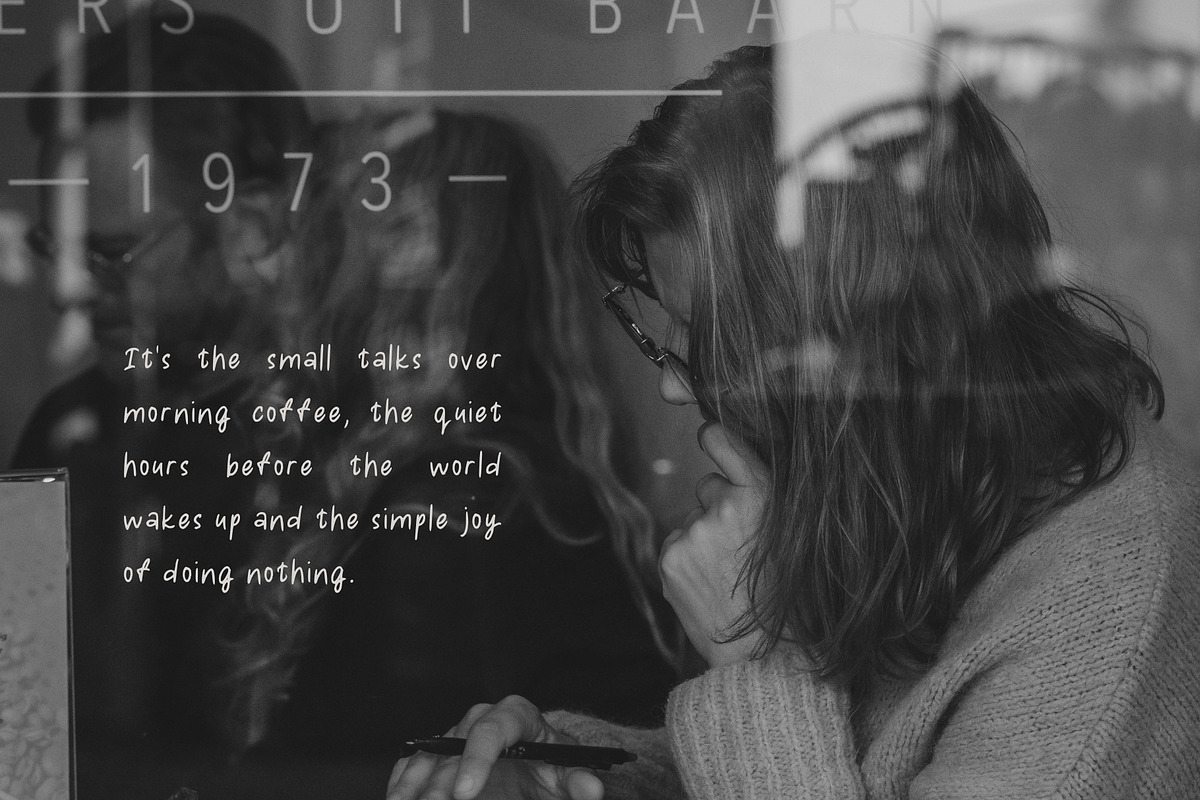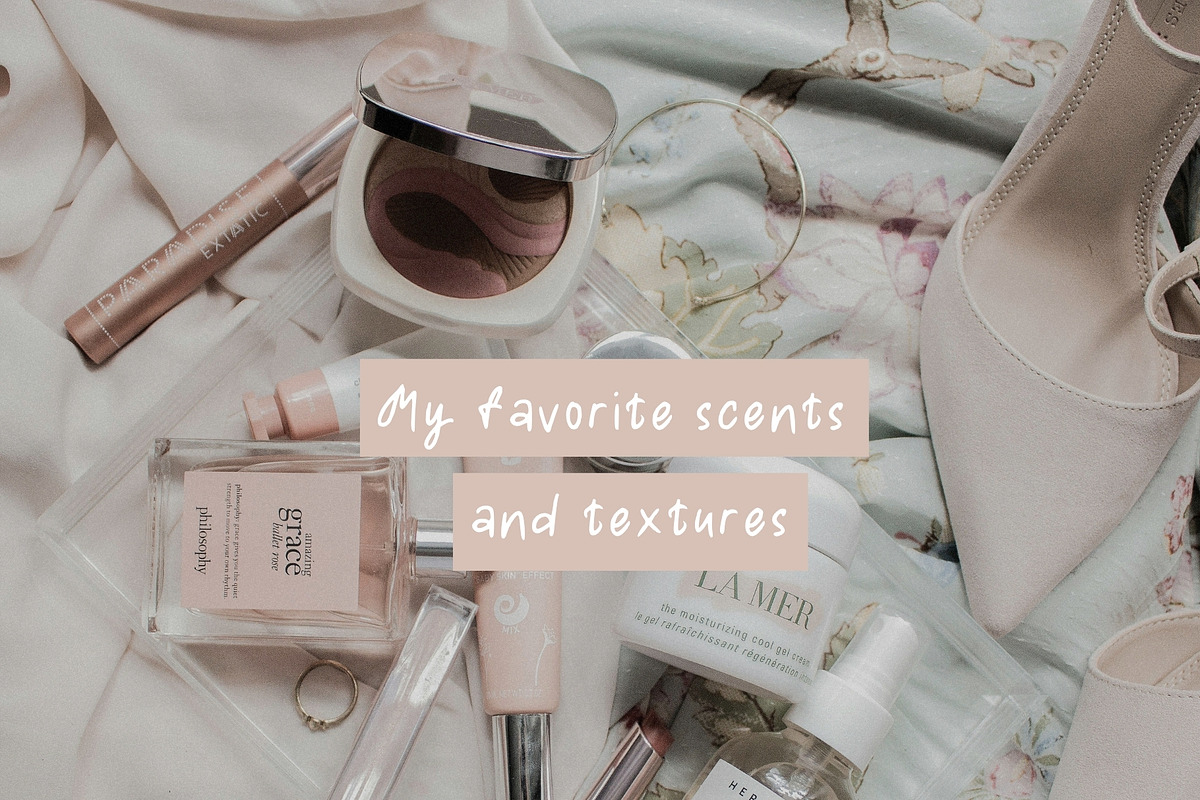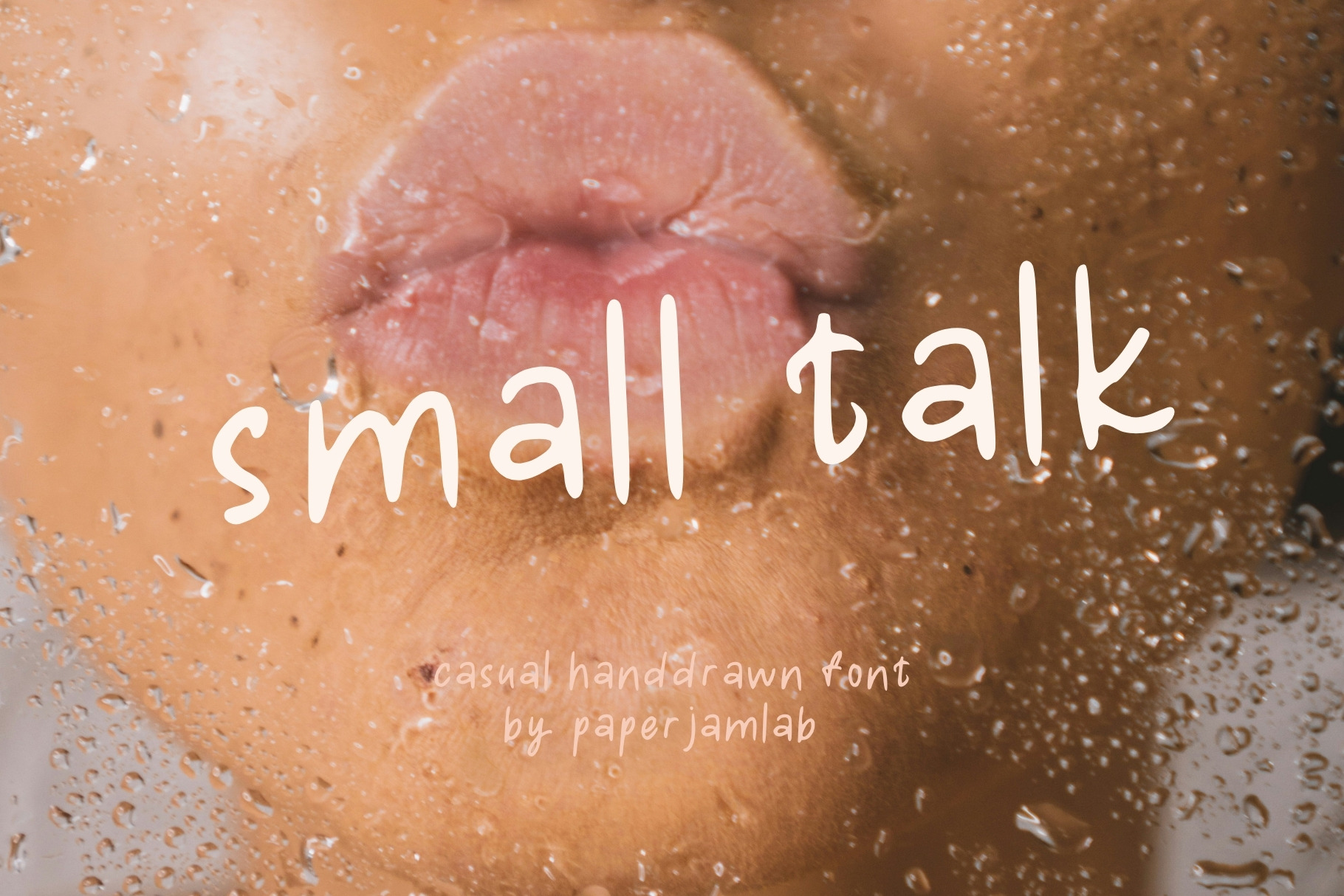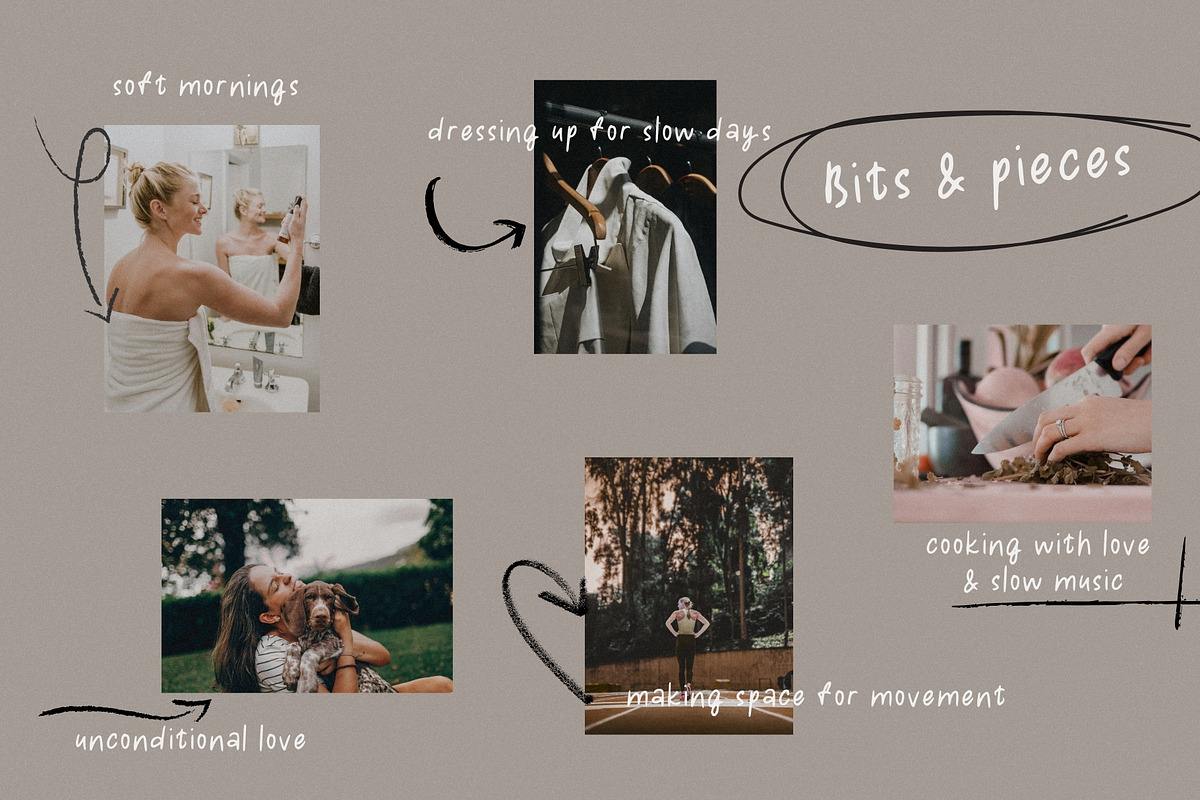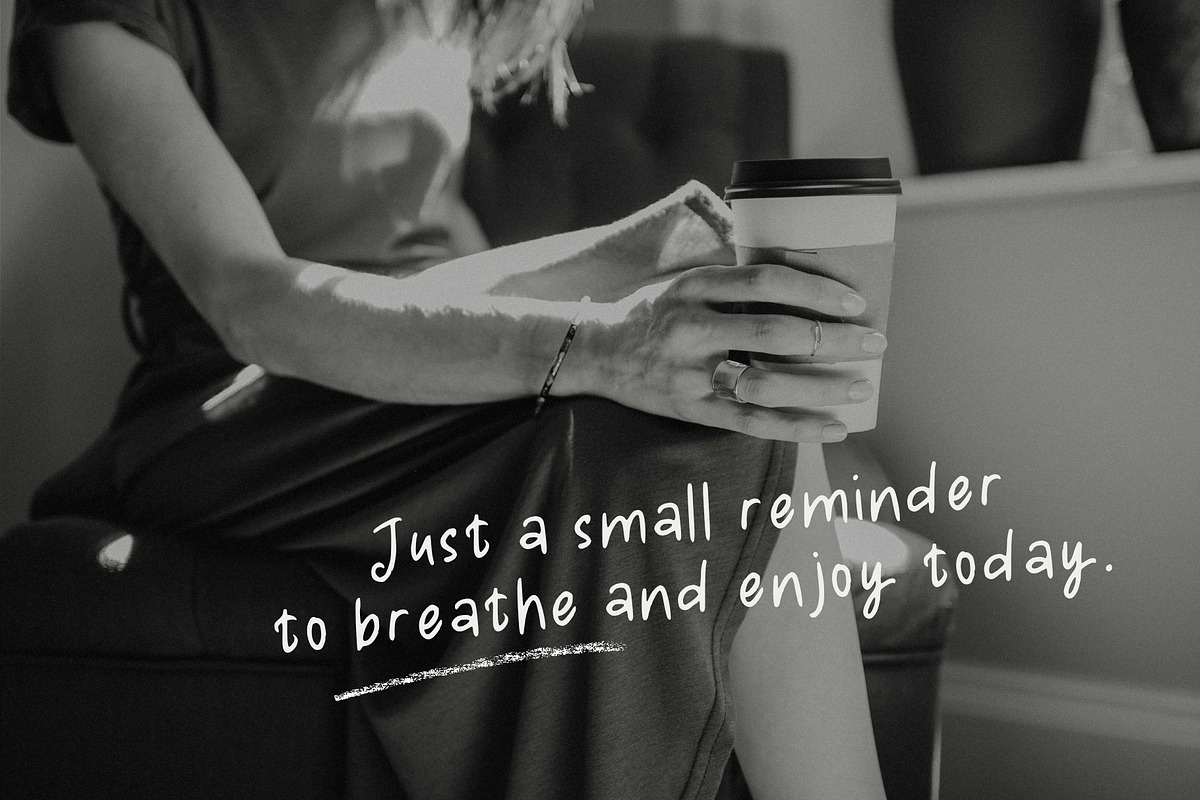
Small Talk. Casual Handwritten Font
Small Talk is a warm, organic, and effortlessly beautiful handwritten font inspired by slow mornings, heartfelt conversations, and the comfort of daily routines. With its clean yet natural lines and excellent legibility, this font brings a human touch and genuine "Pinterest aesthetic" to any creative project.
It feels just like a quick, neat note written in a personal diary or a recipe shared by a close friend.
Stationery & Journaling: Bullet journals, daily planners, custom stickers, and calendar designs.
Craft Packaging & Branding: Labels for organic products, homemade bakery goods, soy candles, honey jars, or botanical cosmetics.
Social Media & Lifestyle Content: Clean aesthetics for Instagram Stories, Pinterest pins, quote graphics, and casual vlogs.
Cute Printables: Greeting cards, rustic wedding invitations, and cozy nursery art prints.